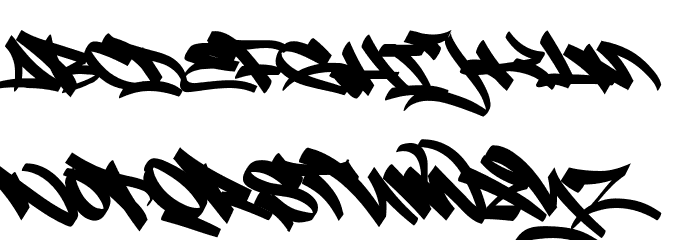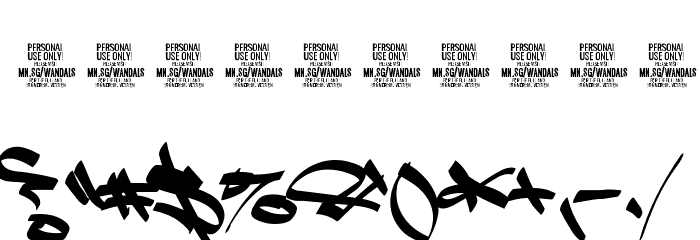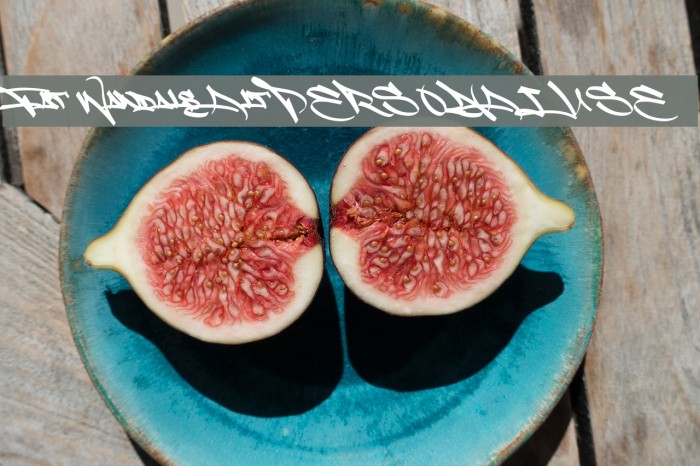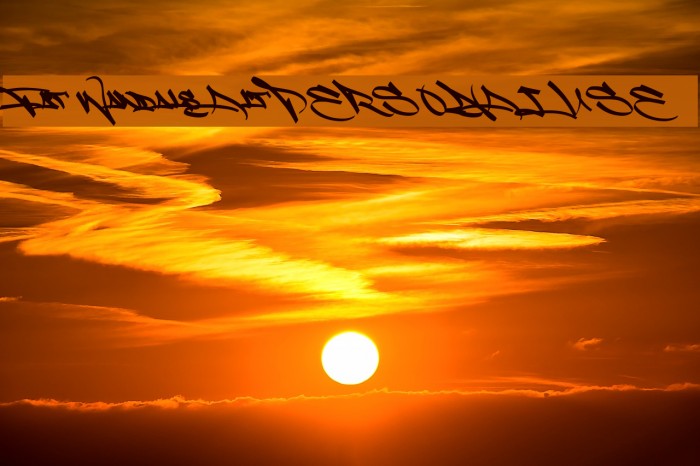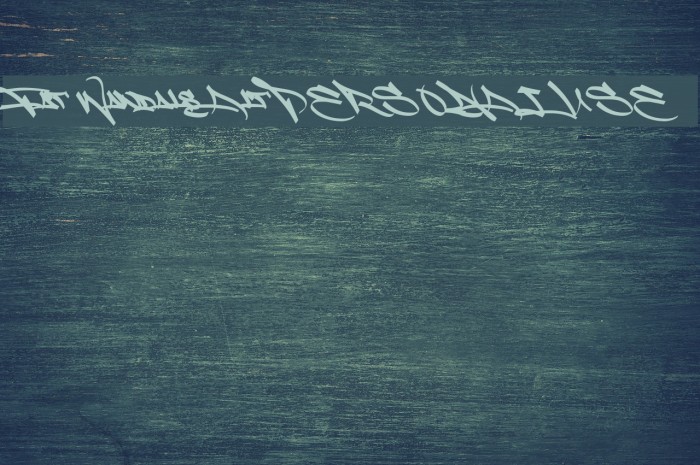
Fat Wandals Alt PERSONAL USE Font
This font exhibits a bold, graffiti-inspired style with dynamic, flowing lines and a sense of urban energy. The characters are highly stylized with exaggerated curves and sharp angles, creating a sense of movement and spontaneity. The uppercase and lowercase letters maintain a consistent aesthetic, while the numbers and special characters integrate seamlessly into the overall design. The font's thick strokes and interconnected forms give it a strong visual impact, making it ideal for projects that require a bold and artistic statement.
A bold, graffiti-inspired font with dynamic, flowing lines and urban energy.
- Proposed Projects: Ideal for street art projects, urban-themed posters, music album covers, and edgy branding materials.
- Character Spacing: Tight
- Use Case: Logos, Posters, Headlines